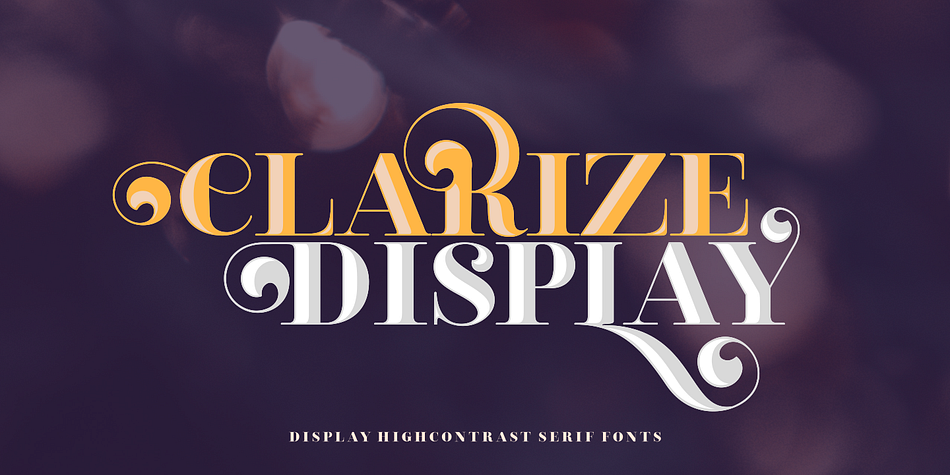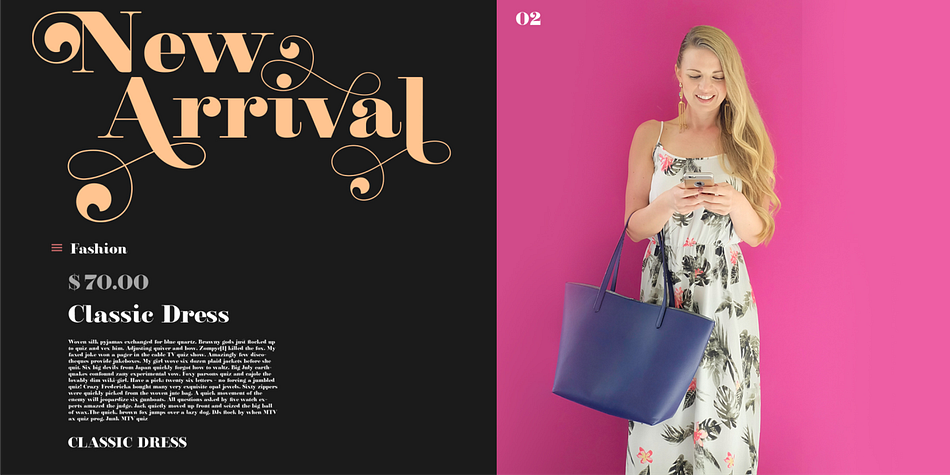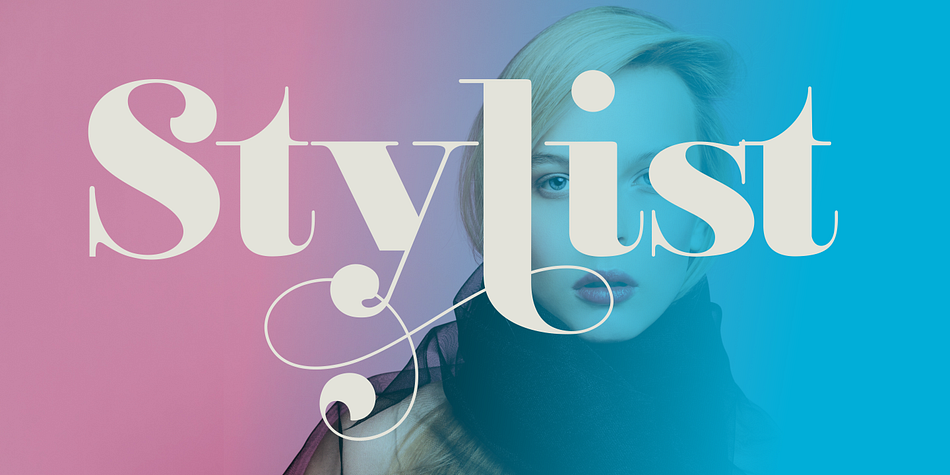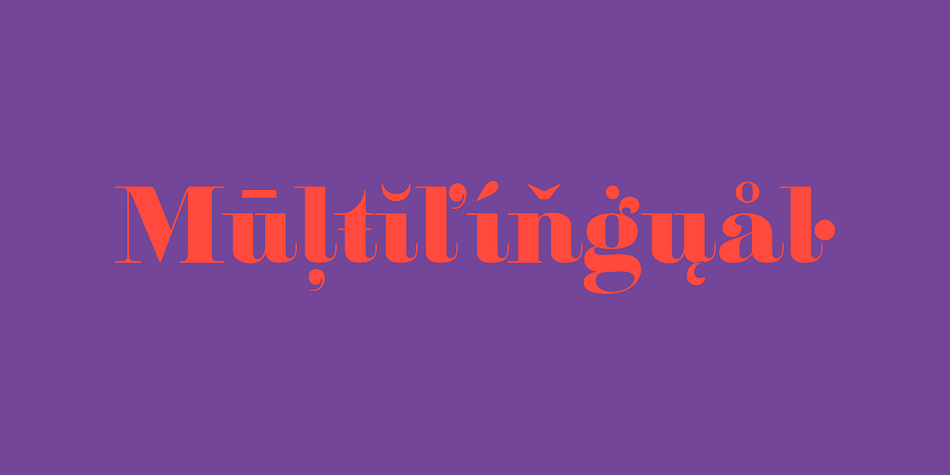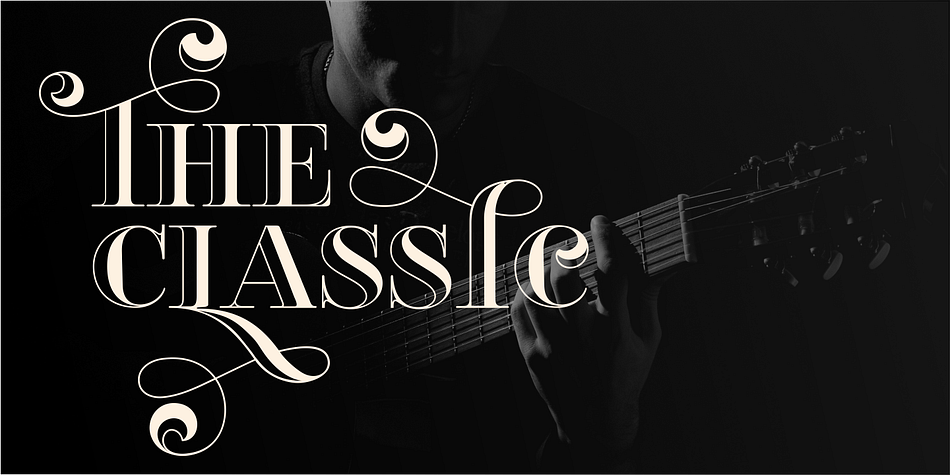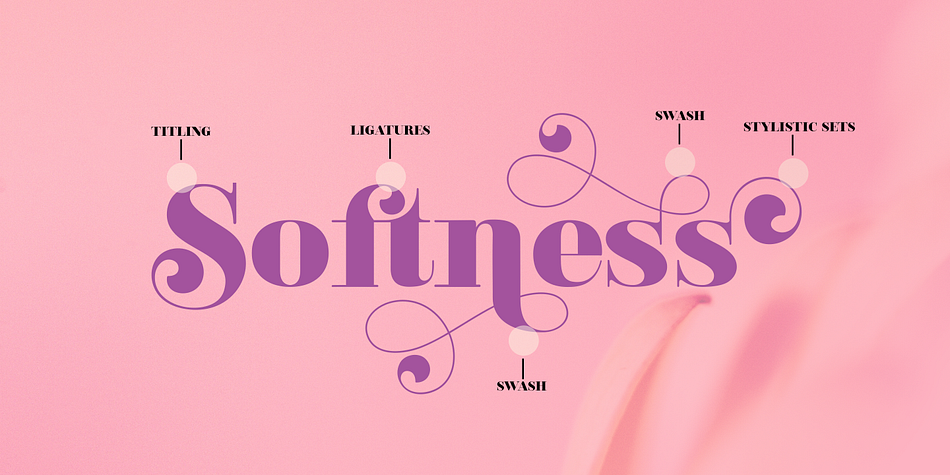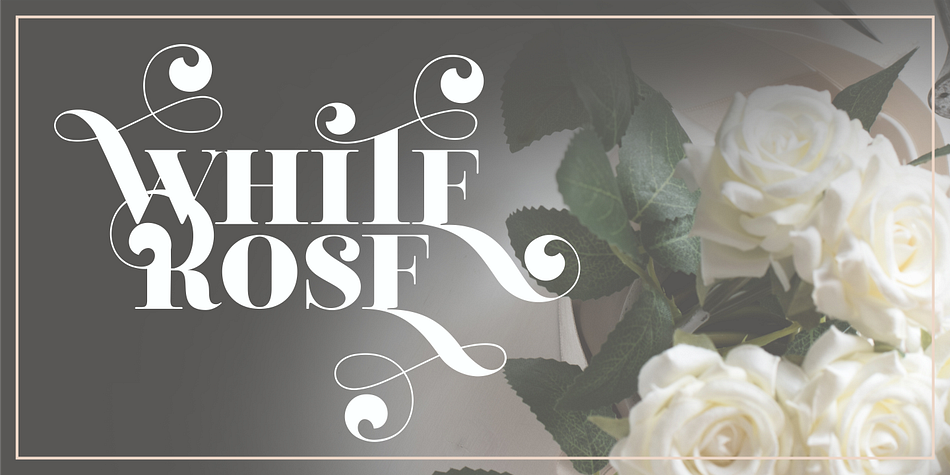
Designed by Cucu Supriyadi, Clarize Display is a serif font family. This typeface has two styles and was published by Seventh Imperium.
Clarize Display is based on the Black style of Clarize.
This version has lots of alternate characters. You can easily access them by opentype features (given PUA code). This font is perfect for designers who are working in fashion, magazine, blog, advertising, packaging, branding, etc.
The family includes 2 styles: base and engraved and are multilingual.
Be creative and create your best displays with those fonts.